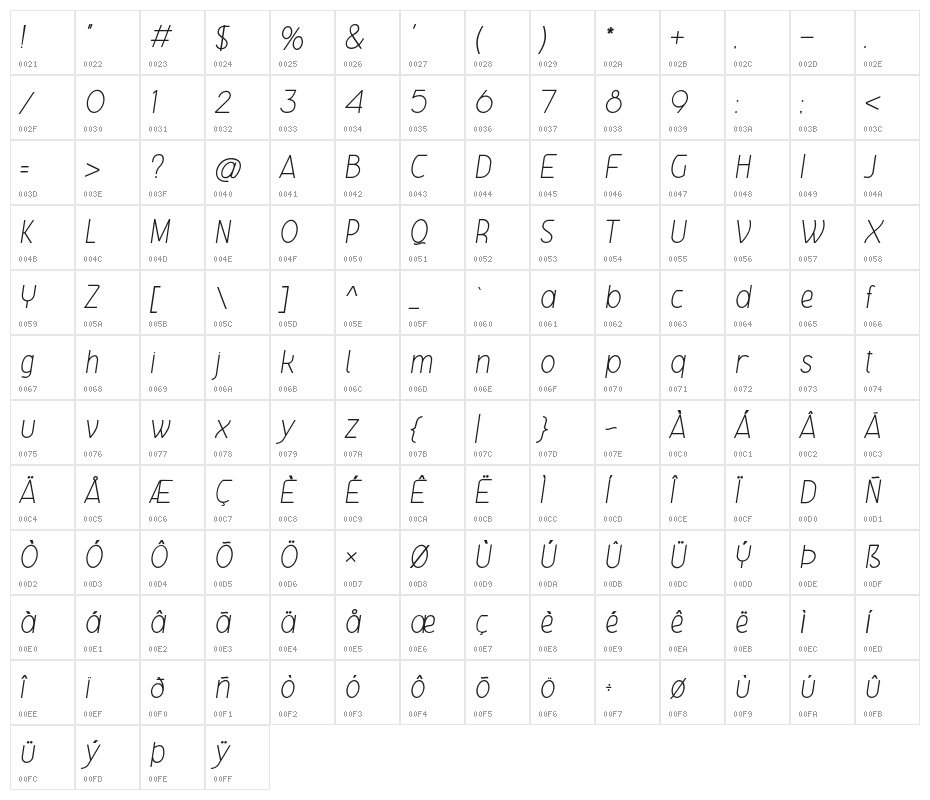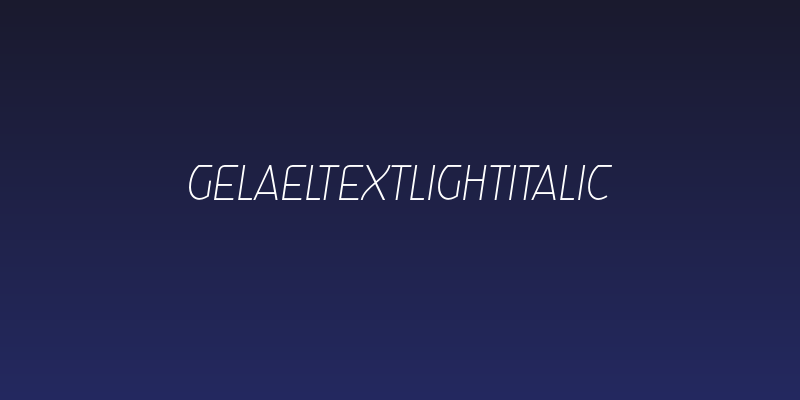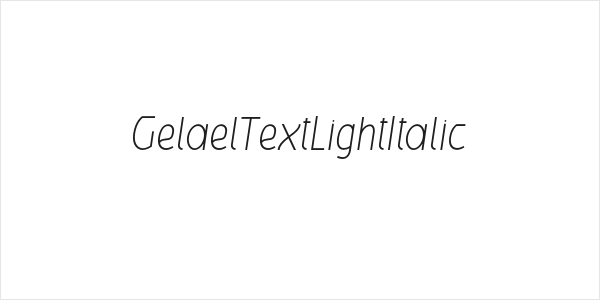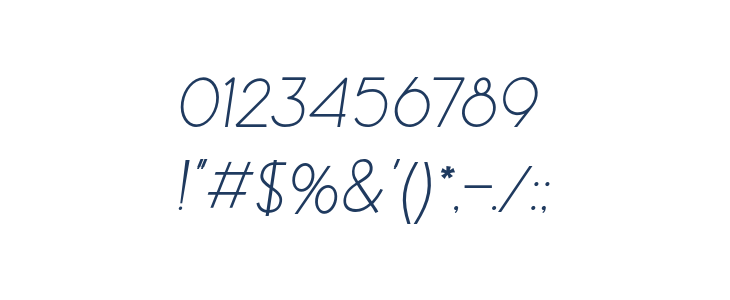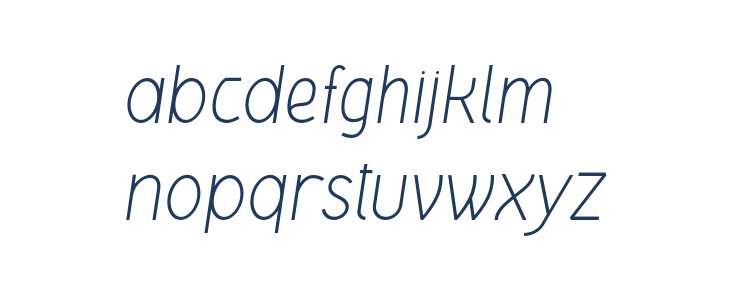
GelaelTextLightItalic Font
GelaelTextLightItalic Description
This font features a sleek and modern design with a light weight and italic style. The characters are elegantly crafted with a slight slant, giving it a dynamic and fluid appearance. The strokes are consistent and smooth, contributing to its refined aesthetic. The uppercase and lowercase letters maintain a harmonious balance, while the numerals and special characters are clear and legible. This font's overall design is both contemporary and versatile, making it suitable for a variety of applications.
| Proposed Projects | Ideal for branding, editorial design, websites, and advertising materials where a modern and elegant touch is desired. |